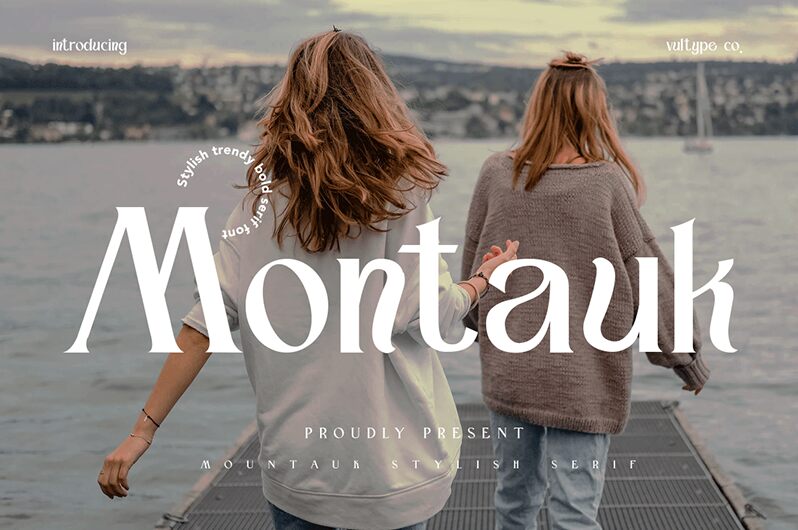
Montauk font by Vultype is a captivating display typeface with a retro charm. Its distinctive letterforms and bold, artistic flair make it perfect for catching the eye in any design project. The font's unique style blends nostalgia with modern aesthetics, ideal for creating striking headlines or standout logos.
Whether you’re designing vintage-inspired posters or crafting bold branding materials, Montauk’s flair brings creativity to the fore. As a free font, it's accessible and ready to download for projects that demand personality and impact. Dive into Montauk’s world where every letter tells a stylish story.